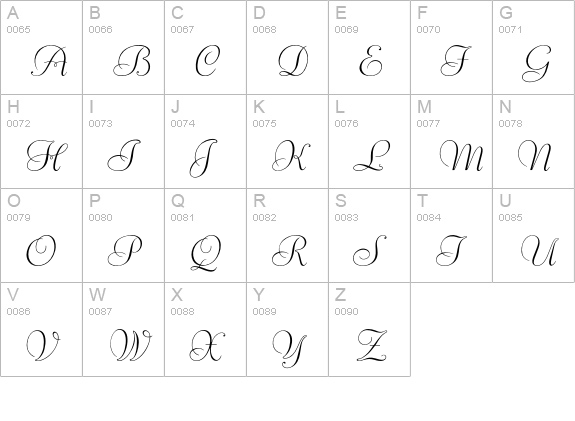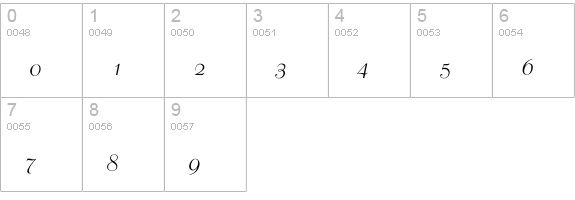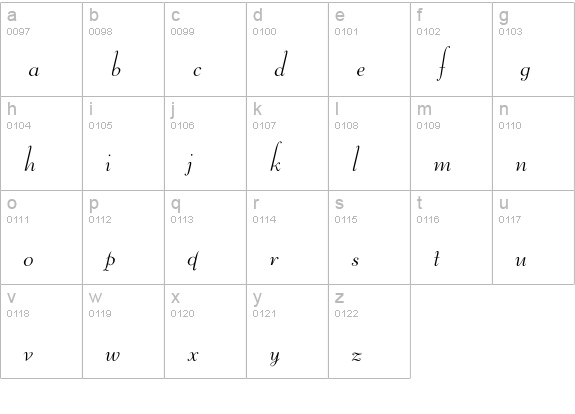
Liberance Font Details
Discover the exquisite beauty and elegance of Liberance font, a versatile typeface that effortlessly combines modern sophistication with timeless charm. With its sleek lines and graceful curves, Liberance exudes a sense of refinement and style that is perfect for a wide range of design projects. This stunning font is not only visually captivating, but also incredibly easy to read, making it ideal for both display and body text. Its subtle yet distinctive presence adds a touch of luxury to any project, whether it be branding, packaging, invitations, or editorial design. Best of all, Liberance font is available for free download exclusively at FontsMarket.com. Embrace the freedom to elevate your designs with this exquisite typeface that will leave a lasting impression on all who encounter it.